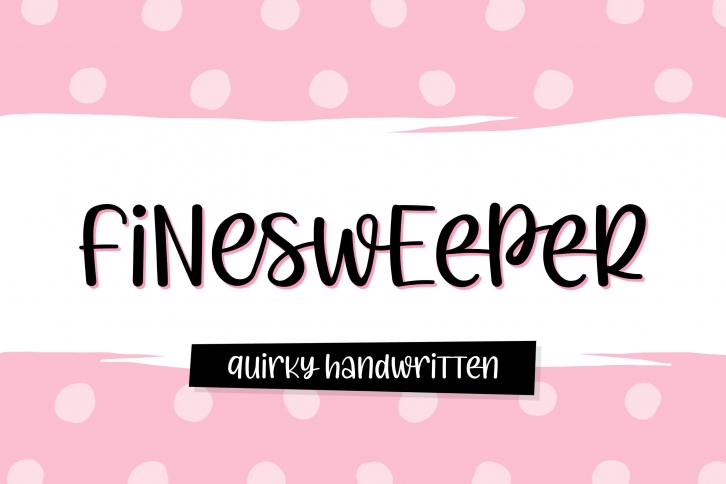
Finesweeper is a beautiful font that was designed by Variatype. It's a great choice for designers and creatives who need such a font. It was released on July 11, 2020 and the file size is 1.82 MB. Finesweeper may give a more youthful, expressive and casual look to your project. It is a very beautiful, refined, elegant, and high-quality font.